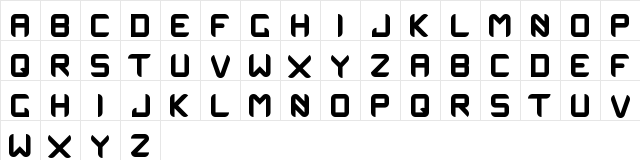
OneManArmy Bold
Design Context for OneManArmy Typeface
OneManArmy has the no-nonsense character of military stencilling and tactical signage, projecting authority and directness. Its bold stroke weight gives it real presence on the page.
A strong choice for security brands, outdoor gear, and high-stakes visual communication.
Pro Tip: Try OneManArmy in all-caps for the most authentic military signage feel. It pairs well with stark, minimal layouts and muted colour palettes.